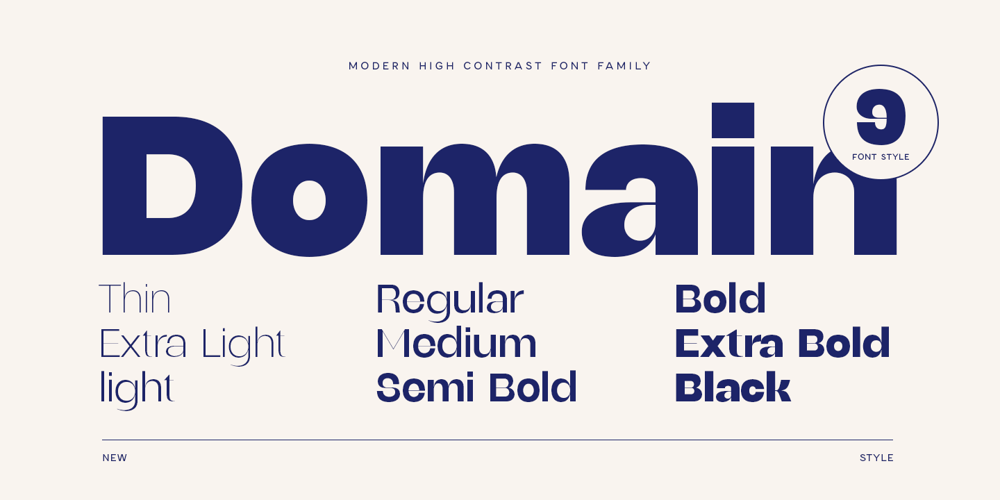
Domain Font Family was designed by Zamroni Hamzah and published by Sensatype Studio. Domain contains 9 styles and family package options. Domain is a Modern High-Contrast Font Family that we created special for elegant, luxury, modern, branding needs, font that you can combine to get any variations and unique shapes easily just in seconds with choose alternates of them. It is a serif display font with moderate contrast that perfect for branding projects, logo, social media posts, advertisements, product packaging, product designs, label, photography, watermark, invitation, stationery, and any projects, it makes with a high level of legibility.